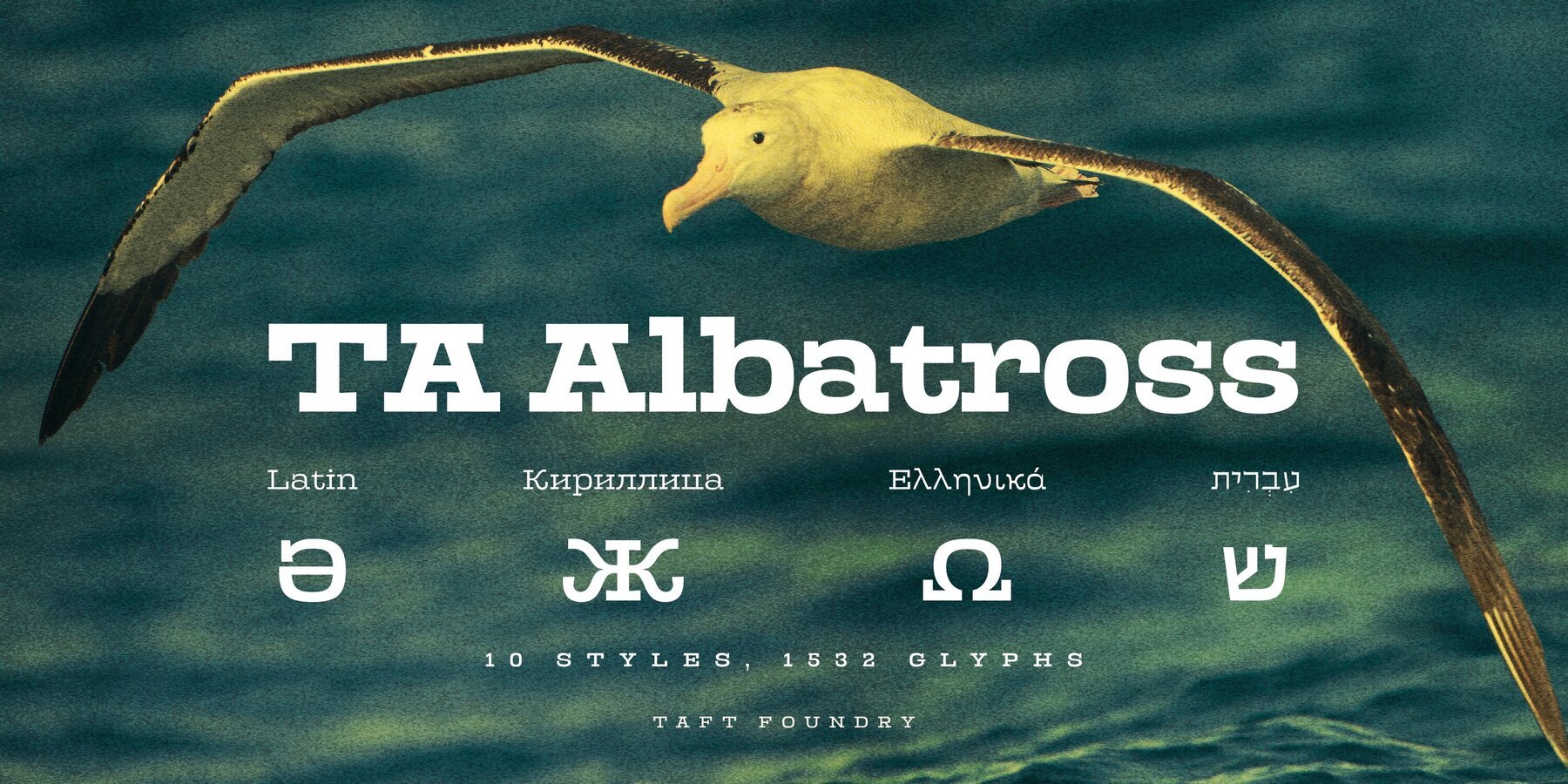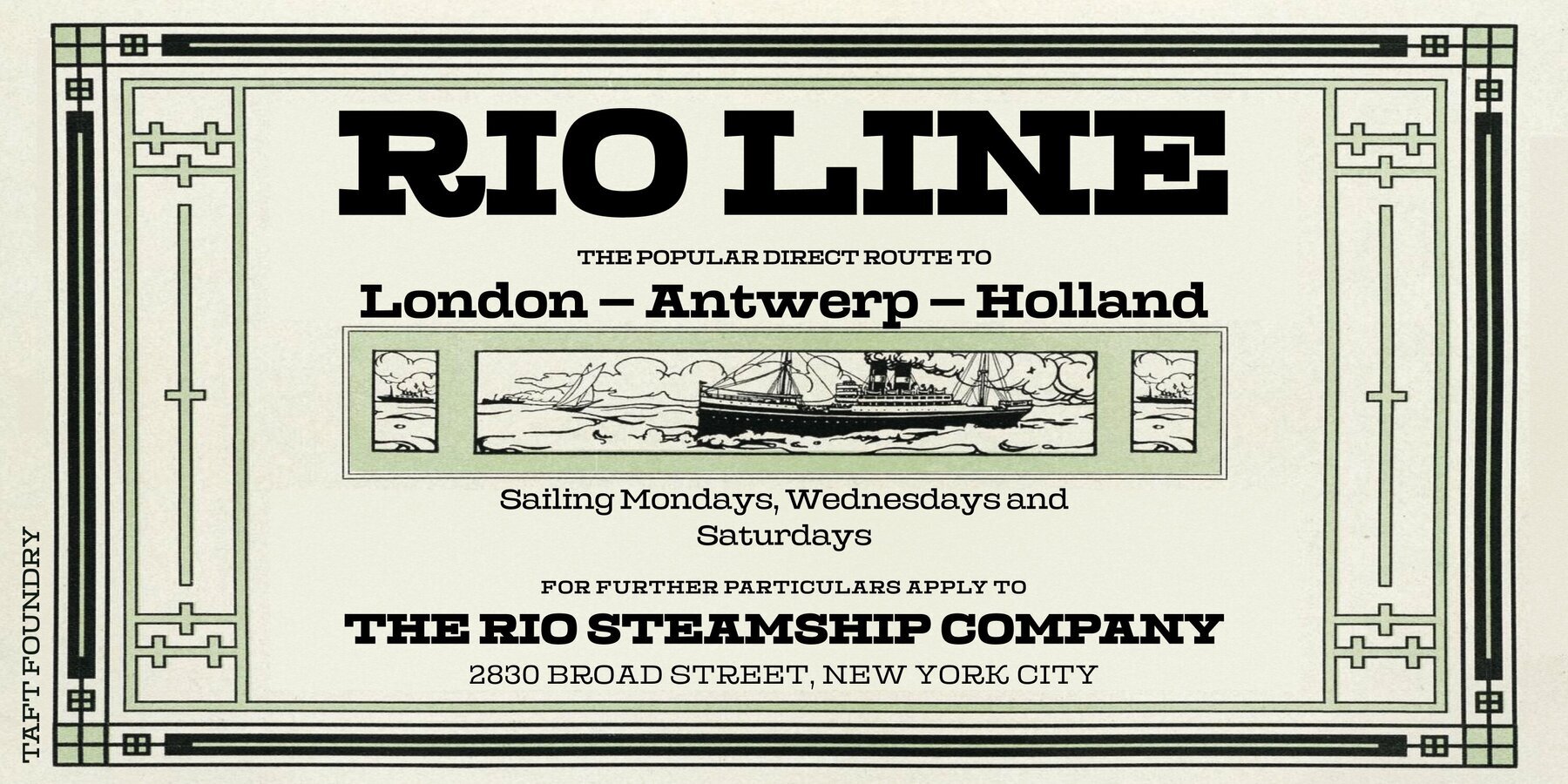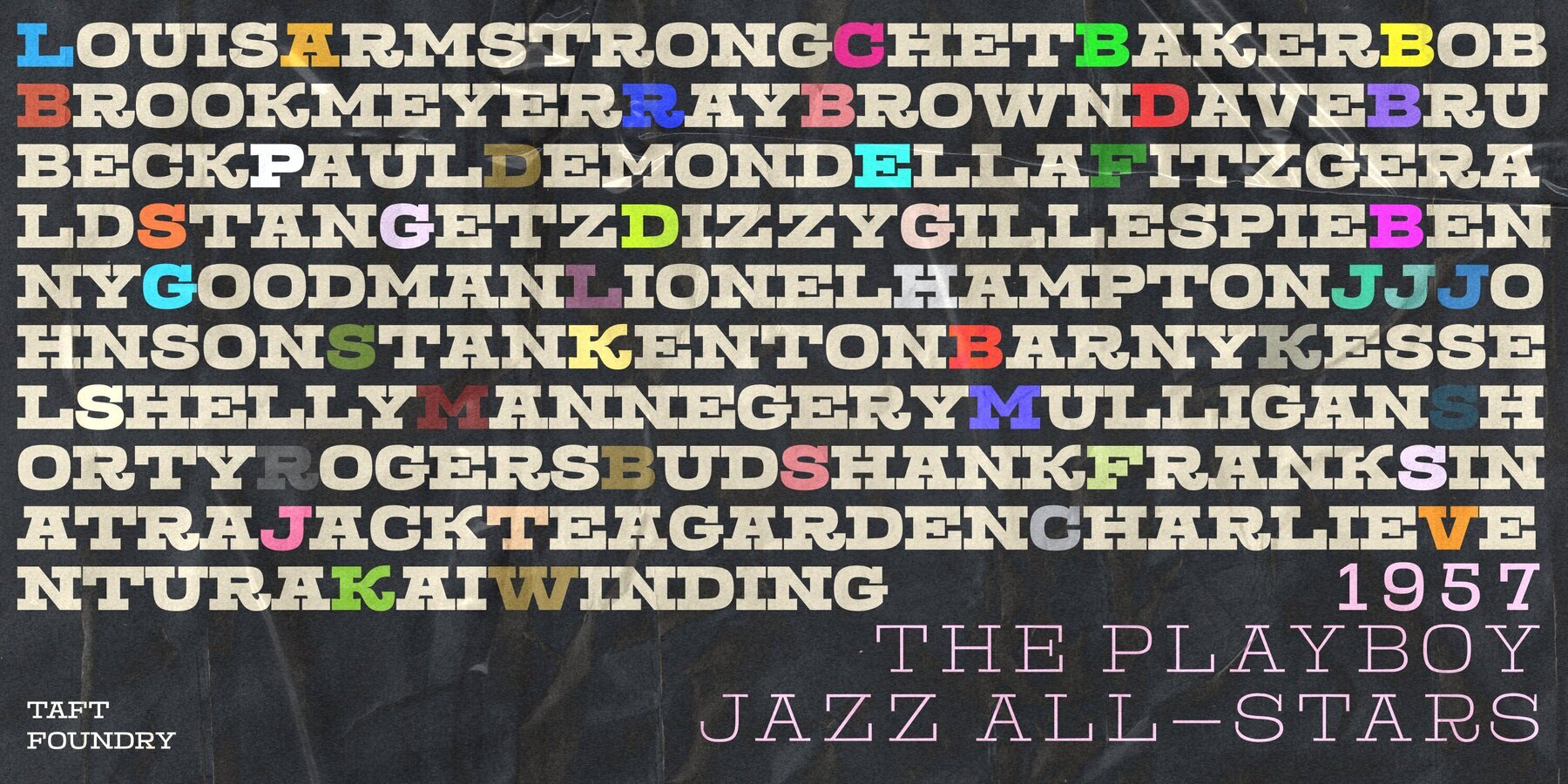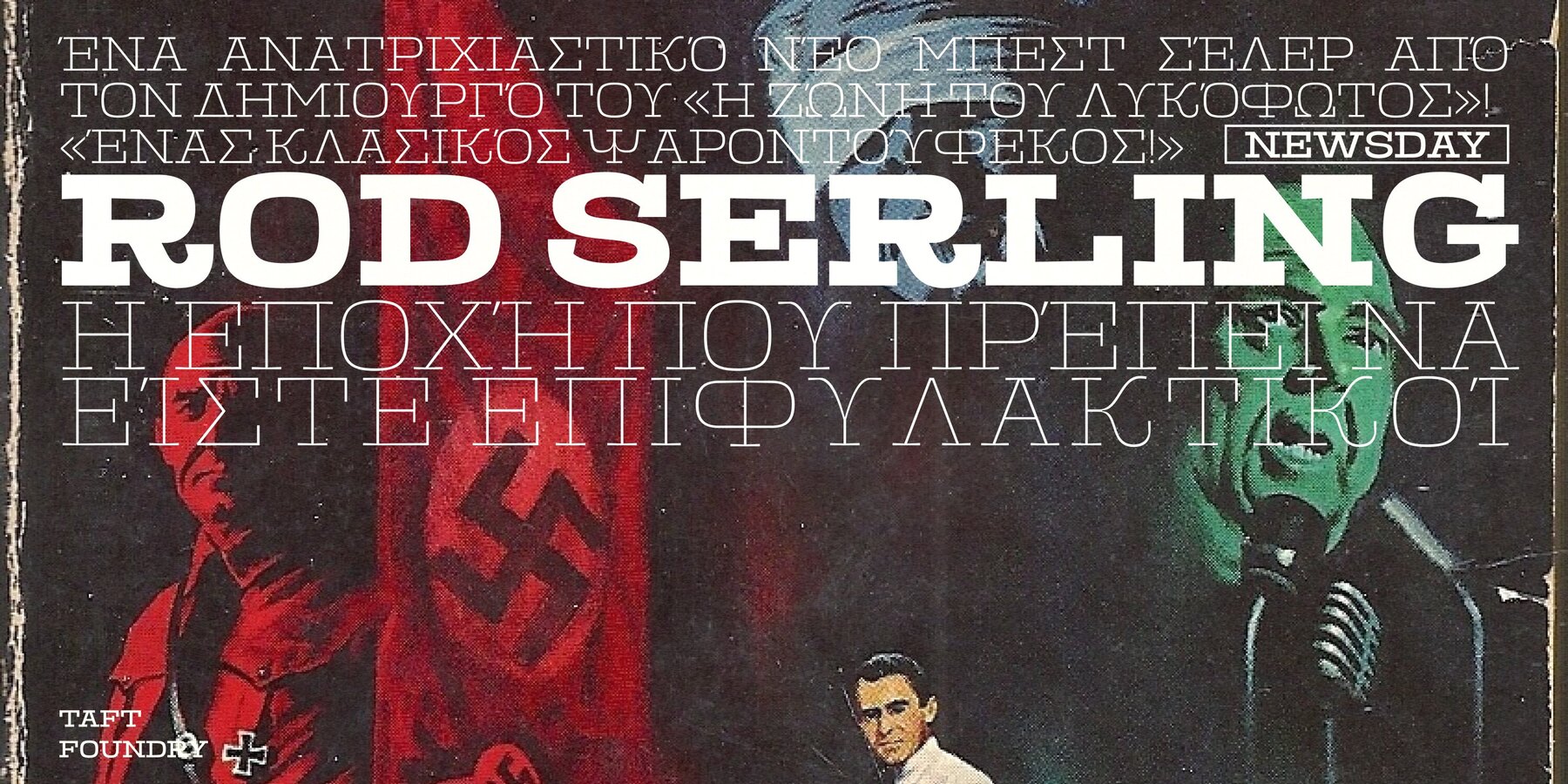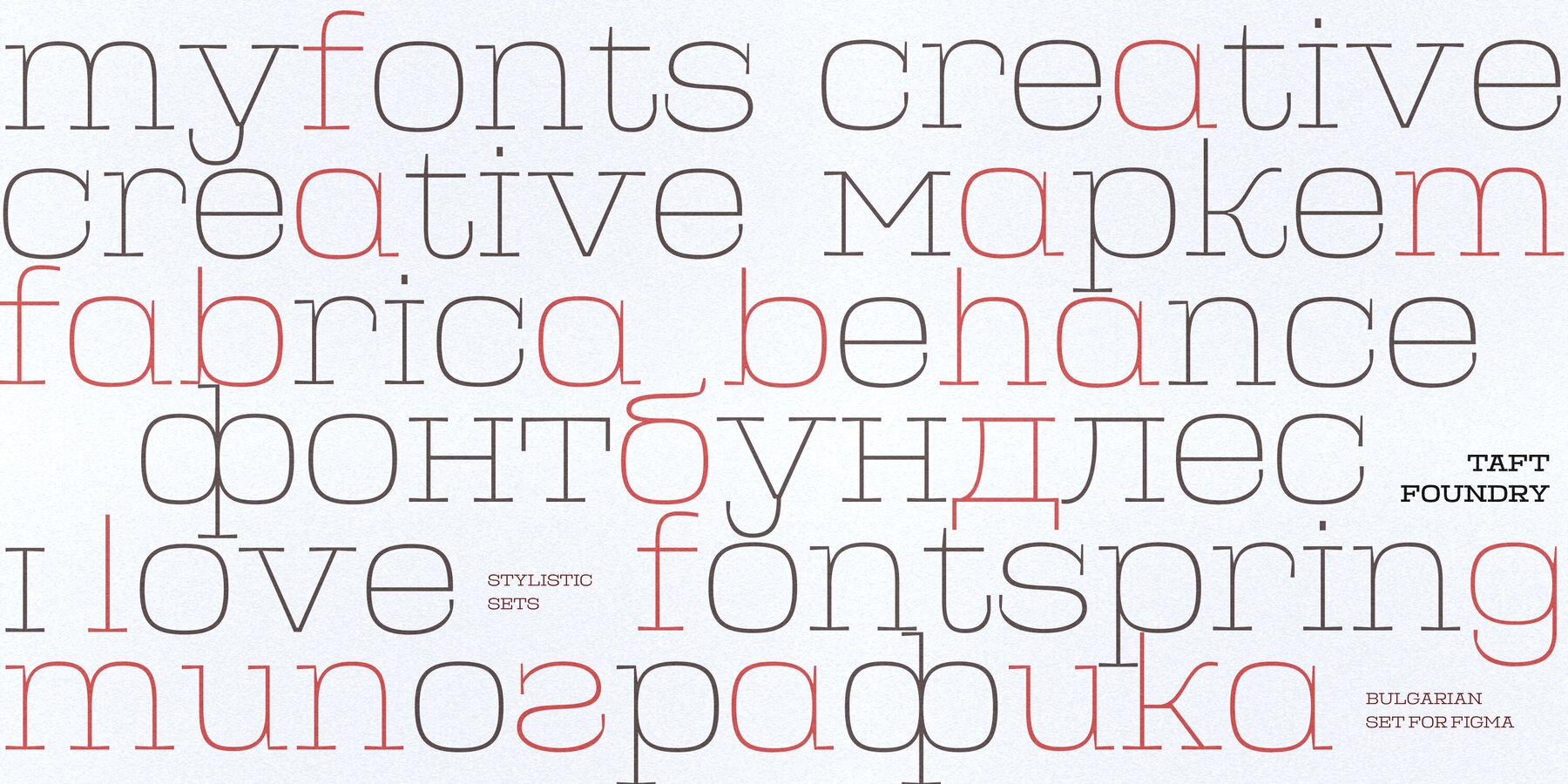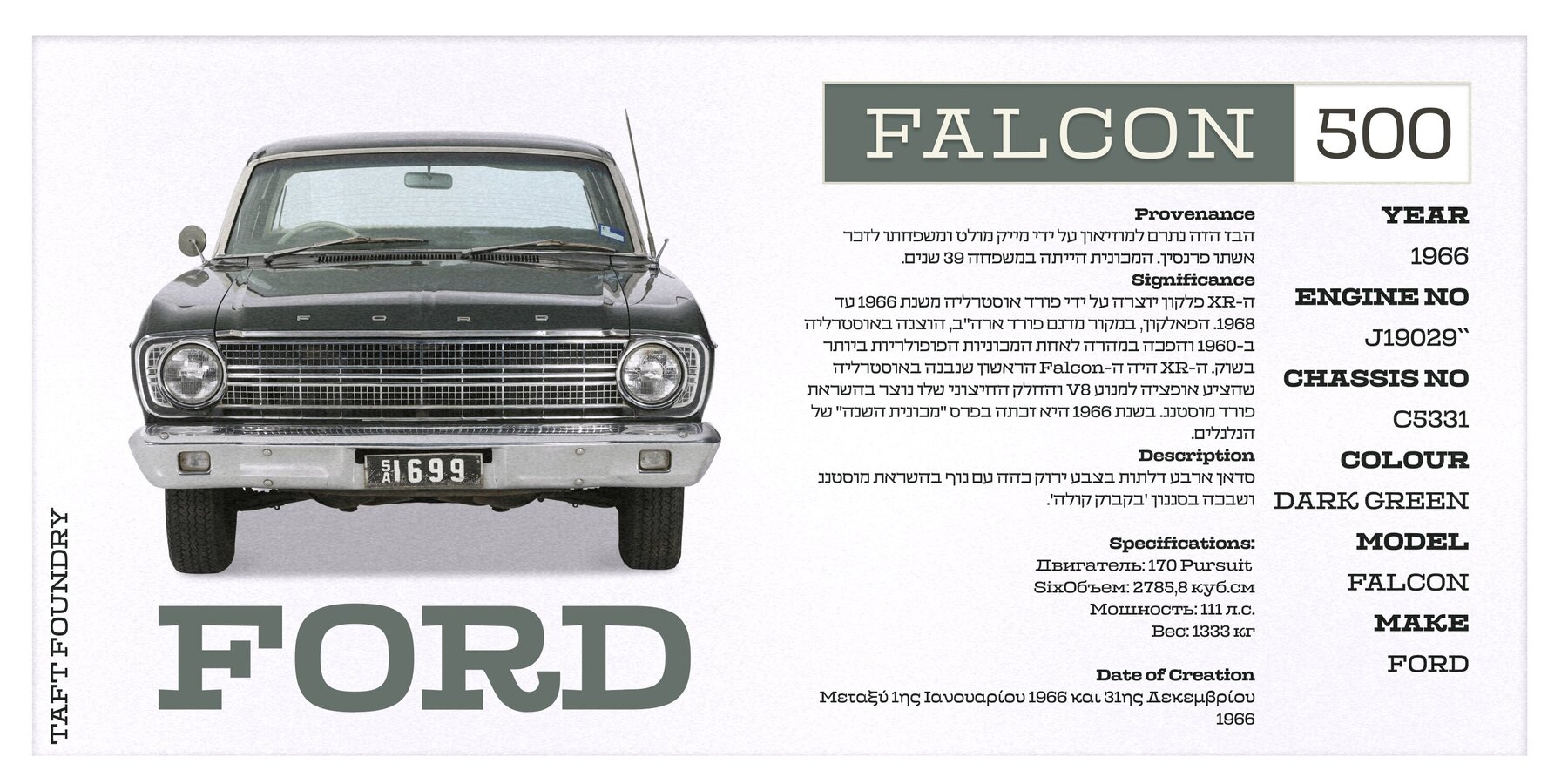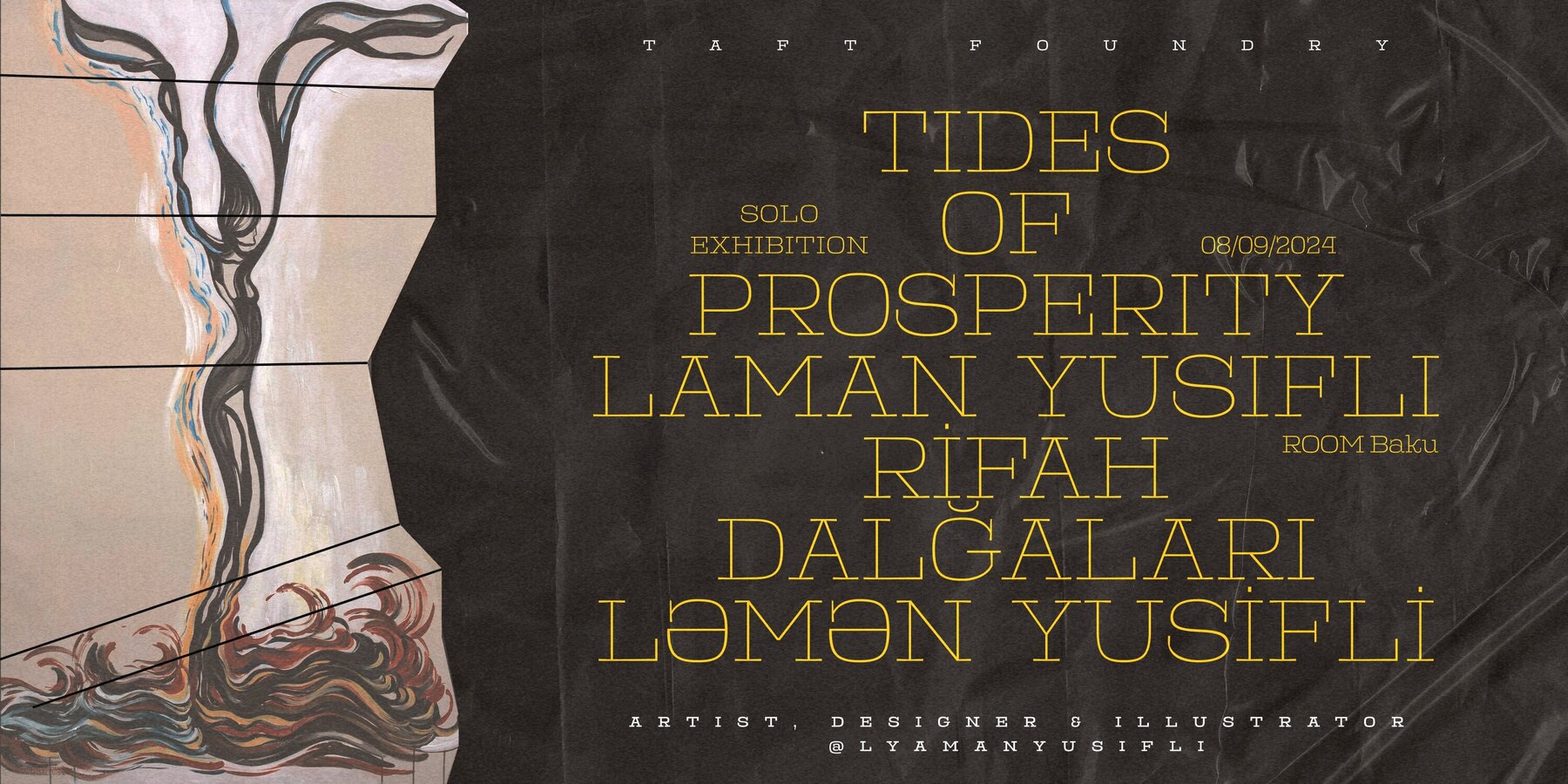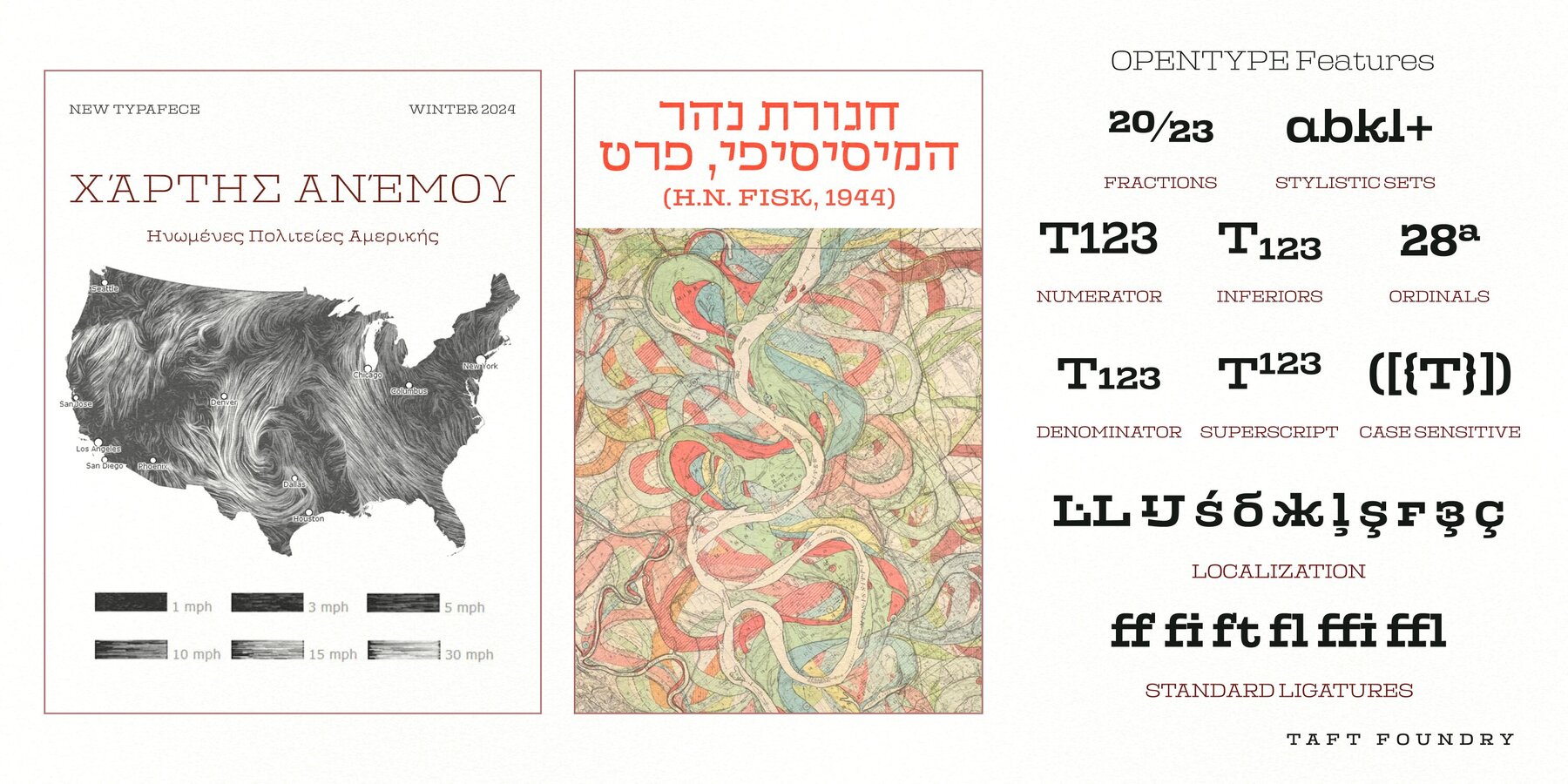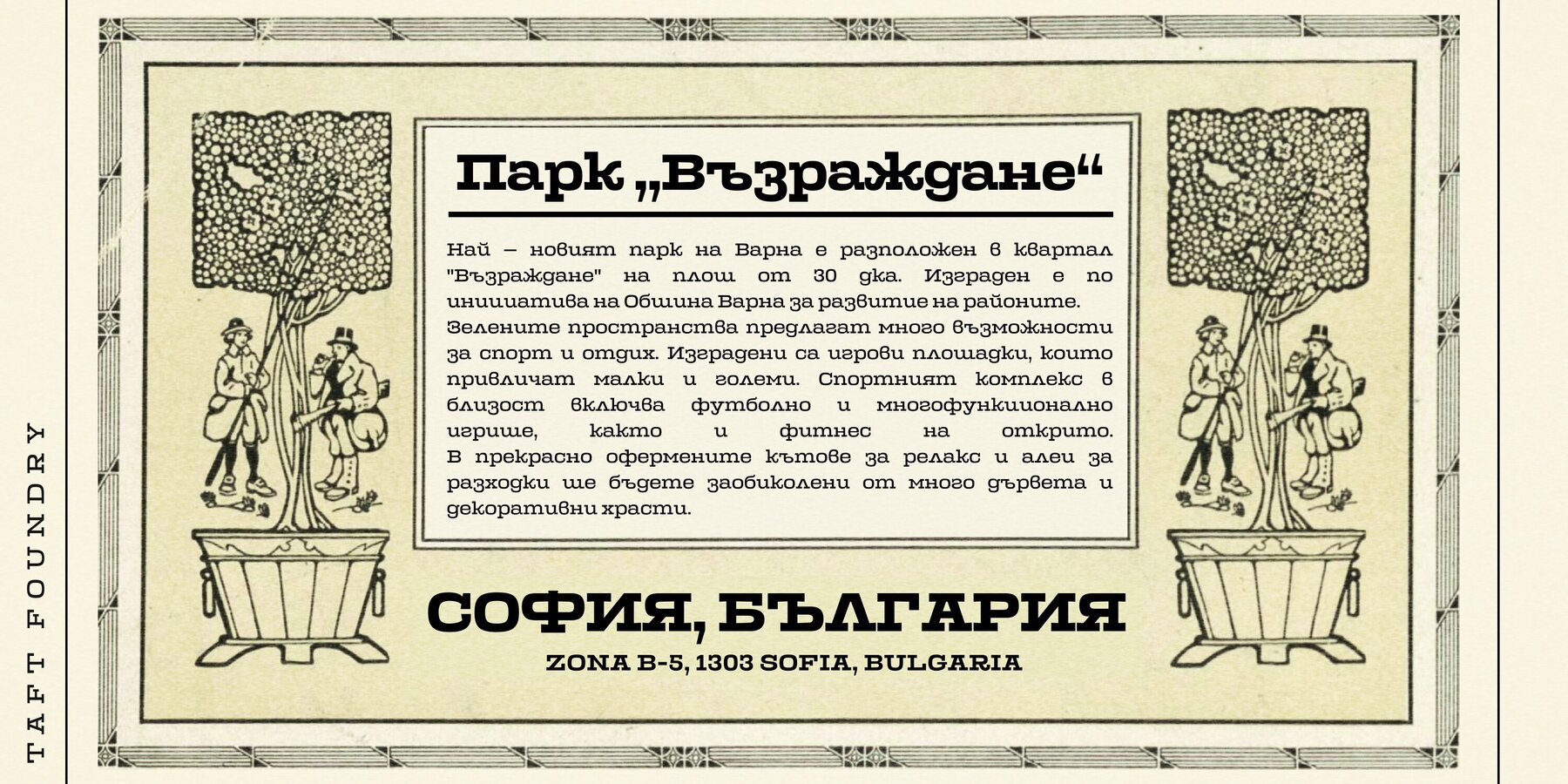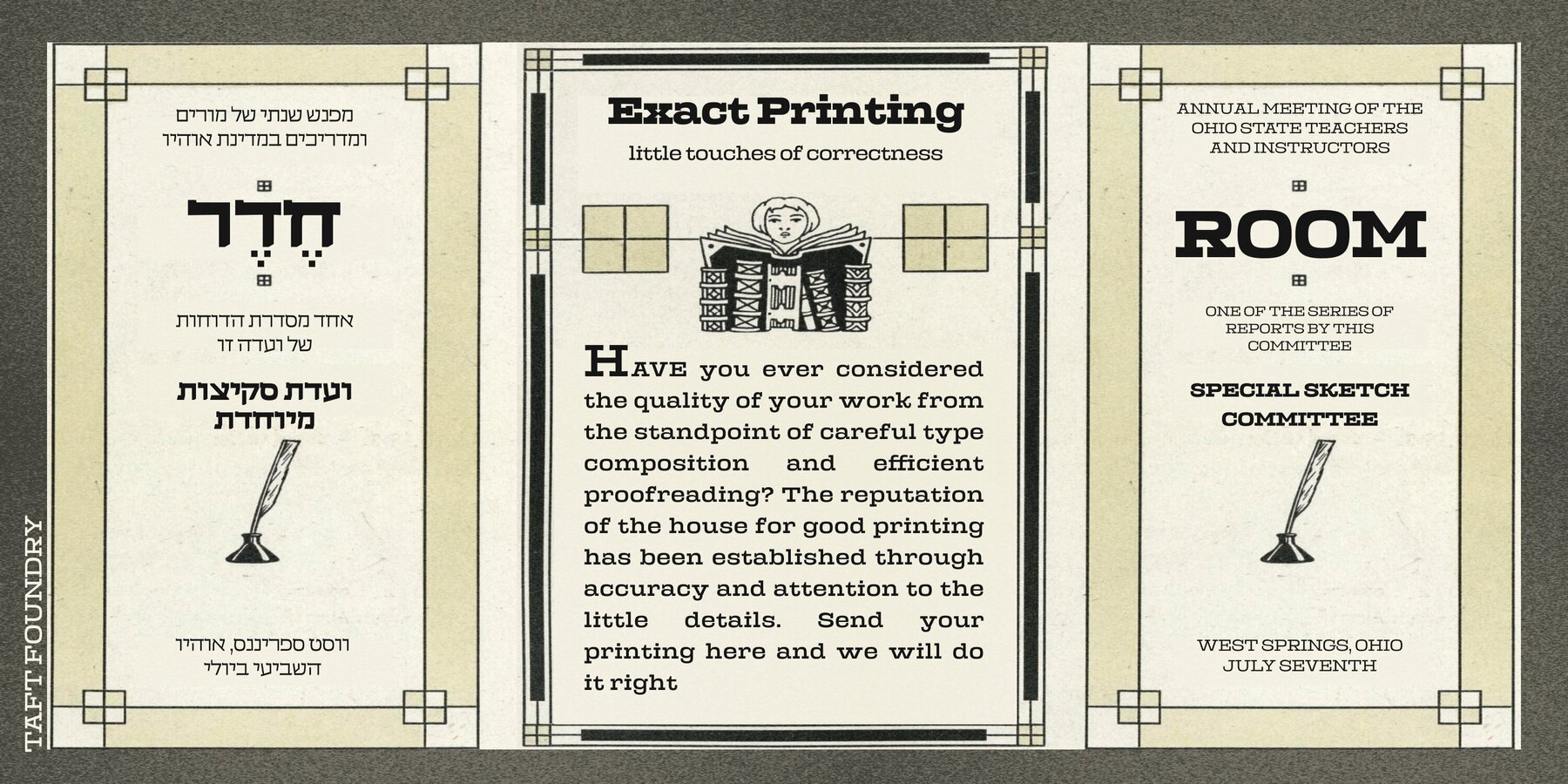
TA Albatross Font
TA Albatross is a fresh and versatile serif font that combines both traditional and modern styles. Available in 10 different styles, this font supports a wide range of languages with its 1,532 glyphs, including Latin, Cyrillic, Greek, and Hebrew scripts. TA Albatross is an ideal choice for posters, book covers, articles, and various other design projects. The design of the TA Albatross font is inspired by the freedom of the albatross bird soaring over open seas. Each letter in the font reflects the balance and grandeur of the albatross in flight. By blending classic serif elements with a modern aesthetic, the font strikes a balance between gothic and humanist styles. Its simple yet expressive style ensures that text is easily readable while also being more captivating. TA Albatross also offers various alternative style options to meet different design requirements. These alternatives give text and headings a more personalized and distinctive appearance, making your designs unique and unparalleled. Latin: Abenaki, Afaan-Oromo, Afar, Afrikaans, Albanian, Alsatian, Amis, Anuta, Aragonese, Aranese-Aromanian, Arrernte, Arvanitic (Latin), Asturian, Atayal, Aymara, Azerbaijani, Bashkir-(Latin), Basque, Belarusian (Latin), Bemba, Bikol, Bislama, Bosnian, Breton, Cape-Verdean-Creole, Catalan, Cebuano, Chamorro, Chavacano, Chichewa, Chickasaw, Cimbrian, Cofán, Cornish, Corsican, Creek, Crimean Tatar (Latin), Croatian, Czech, Danish, Dawan, Delaware, Dholuo, Drehu, Dutch, English, Esperanto, Estonian, Faroese, Fijian, Filipino, Finnish, Folkspraak, French, Frisian, Friulian, Gagauz (Latin), Galician, Ganda, Genoese, German, Gikuyu, Gooniyandi, Greenlandic (Kalaallisut), Guadeloupean-Creole, Gwich’in, Haitian-Creole, Hän, Hawaiian, Hiligaynon, Hopi, Hotcąk (Latin), Hungarian, Icelandic, Ido, Igbo, Ilocano, Indonesian, Interglossa, Interlingua, Irish, Istro-Romanian, Italian, Jamaican, Javanese-(Latin), Jèrriais, Kaingang, Kala-Lagaw-Ya, Kapampangan (Latin), Kaqchikel, Karakalpak-(Latin), Karelian (Latin), Kashubian, Khinalig, Kikongo, Kinyarwanda, Kiribati, Kirundi, Klingon, Kurdish-(Latin), Ladinlatinlatino-sine-Flexione, Latvian, Lithuanian, Lojban, Lombard, Low-Saxon, Luxembourgish, Maasai, Makhuwa, Malay, Maltese, Manx, Māori, Marshallese, Marquesan, Megleno-Romanian, Meriam-Mir, Mirandese, Mohawk, Moldovan, Montagnais, Montenegrin, Murrinh-Patha, Nagamese-Creole, Nahuatl, Ndebele, Neapolitan, Ngiyambaa, Niuean, Noongar, Norwegian, Novial, Occidental, Occitan, Onĕipŏt, Oshiwambo, Ossetian (Latin), Palauan, Papiamento, Piedmontese, Polish, Portuguese, Potawatomi, Q’eqchi’, Quechua, Rarotongan, Romanian, Romansh, Rotokas, Sami-(Inari-Sami), Sami (Lule-Sami), Sami (Northern-Sami), Sami (Southern-Sami), Samoan, Sango, Saramaccan, Sardinian, Scottish-Gaelic, Serbian-(Latin), Seri, Seychellois-Creole, Shawnee, Shona, Sicilian, Silesian, Slovak, Slovenian, Slovio-(Latin), Somali, Sorbian (Lower-Sorbian), Sorbian (Upper-Sorbian), Sotho (Northern), Sotho-(Southern), Spanish, Sranan, Sundanese (Latin), Swahili, Swazi, Swedish, Tagalog, Tahitian, Tetum, Tok-Pisin, Tokelauan, Tongan, Tshiluba, Tsonga, Tswana, Tumbuka, Turkish, Turkmen-(Latin), Tuvaluan, Tzotzil, Uzbek (Latin), Venetian, Vepsian, Vietnamese, Volapük, Võro, Wallisian, Walloon, Waray-Waray, Warlpiri, Wayuu, Welsh, Wik-Mungkan, Wiradjuri, Wolof, Xavante, Xhosa, Yapese, Yindjibarndi, Zapotec, Zarma, Zazaki, Zulu, Zuni. Cyrillic: Adyghe, Akhvakh, Aleut (Cyrillic), Altaic, Andi, Archi, Avar, Bashkir, Belarusian (Cyrillic), Besermyan, Bosnian (Cyrillic), Bulgarian (Cyrillic), Buryat, Chechen (Cyrillic), Chukchi, Chulym, Chuvash, Dargwa, Dungan, Enets, Even (Lamut), Gagauz, Godoberi, Ingush, Kabardino-Cherkess, Karaim, Karakalpak, Karata (Karata-Tukita), Karelian, Kazakh (Cyrillic), Ket, Kildin Sámi, Kirghiz, Komi-Zyrian, Koryak, Kumyk, Lak, Lezgian, Macedonian, Moldavian (Cyrillic), Mongolian, Mordvin-moksha, Nanai, Nganasan, Oroch, Ossetian, Russian, Rusyn, Saami, Serbian (Cyrillic), Soyot-Tsaatan, Tabasaran, Tadzhik, Tatar Volgaic, Tindi, Touva, Tsez, Turkmen (Cyrillic), Udege, Udmurt, Uighur (Cyrillic), Ukrainian, Ulch, Uzbek (Cyrillic), Veps, Yukagir. Greek HebrewLanguage support